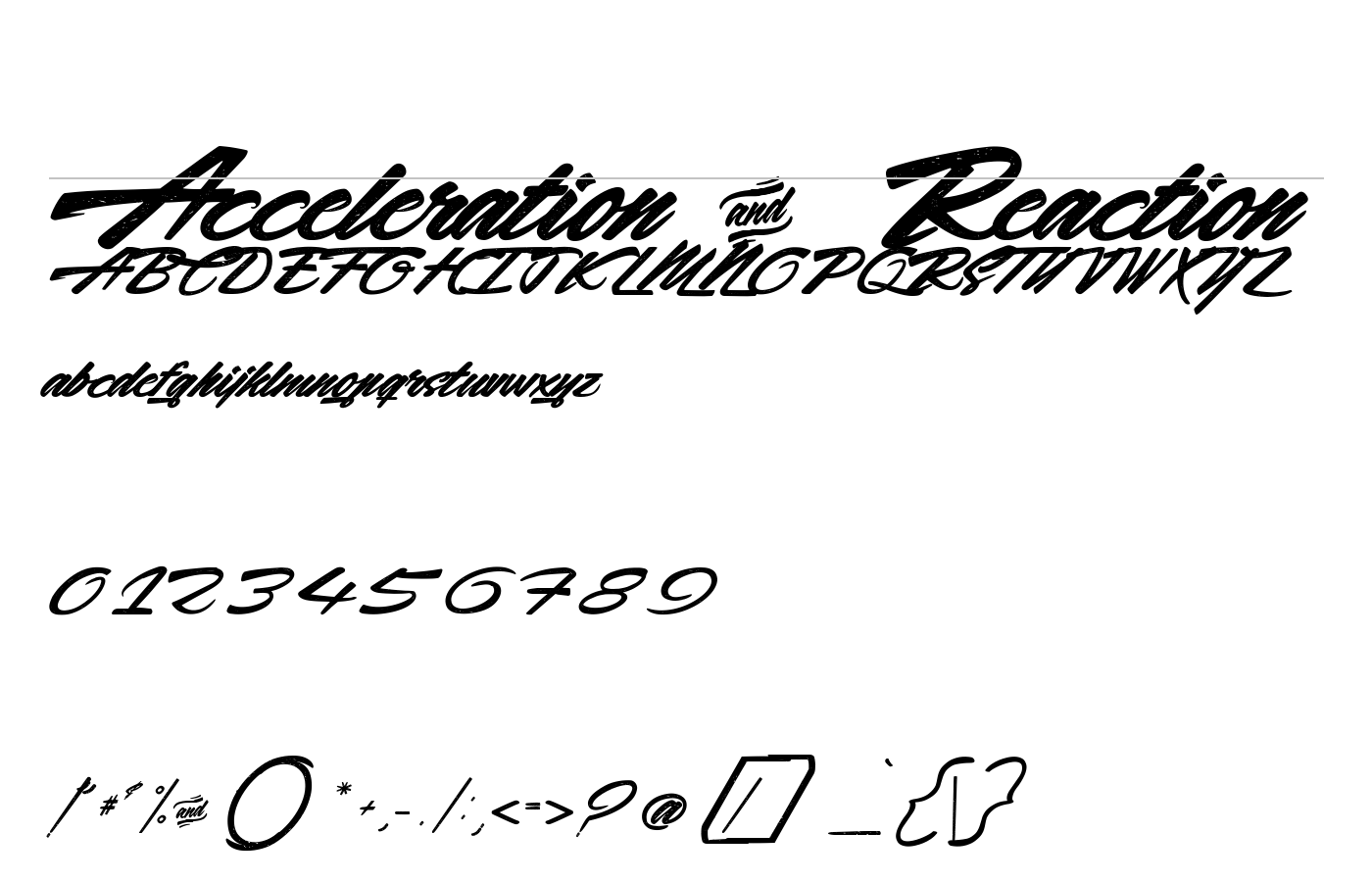
Acceleration & Reaction is an energetic script font with a dynamic, italicized style that suggests speed and movement. Its bold, slightly textured strokes and flowing letterforms bring a casual yet powerful personality, making it perfect for branding, sports, automotive themes, and edgy headlines. This font works well where you want to convey action and excitement with a handcrafted, expressive touch.
Acceleration & Reaction Font
About Acceleration & Reaction Font